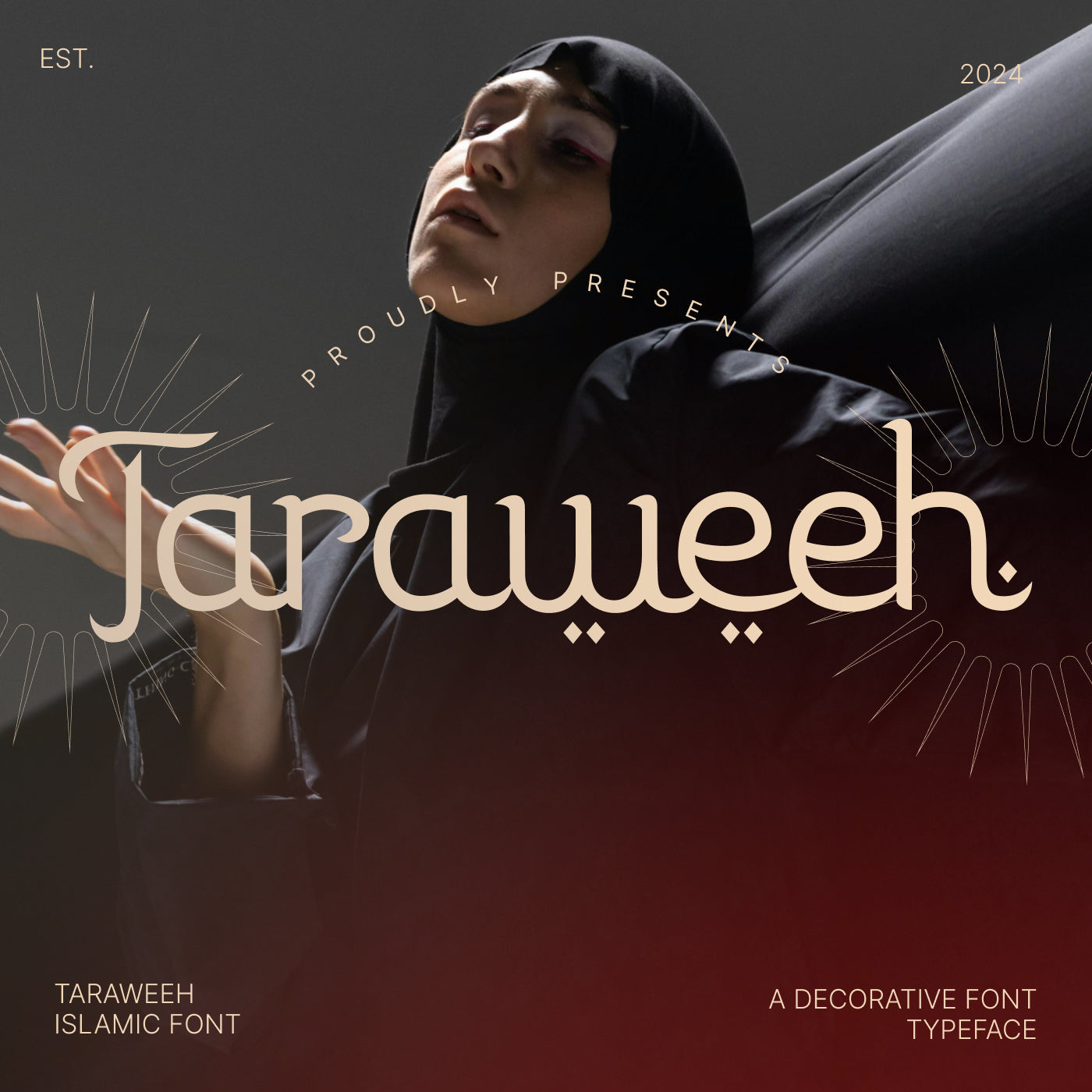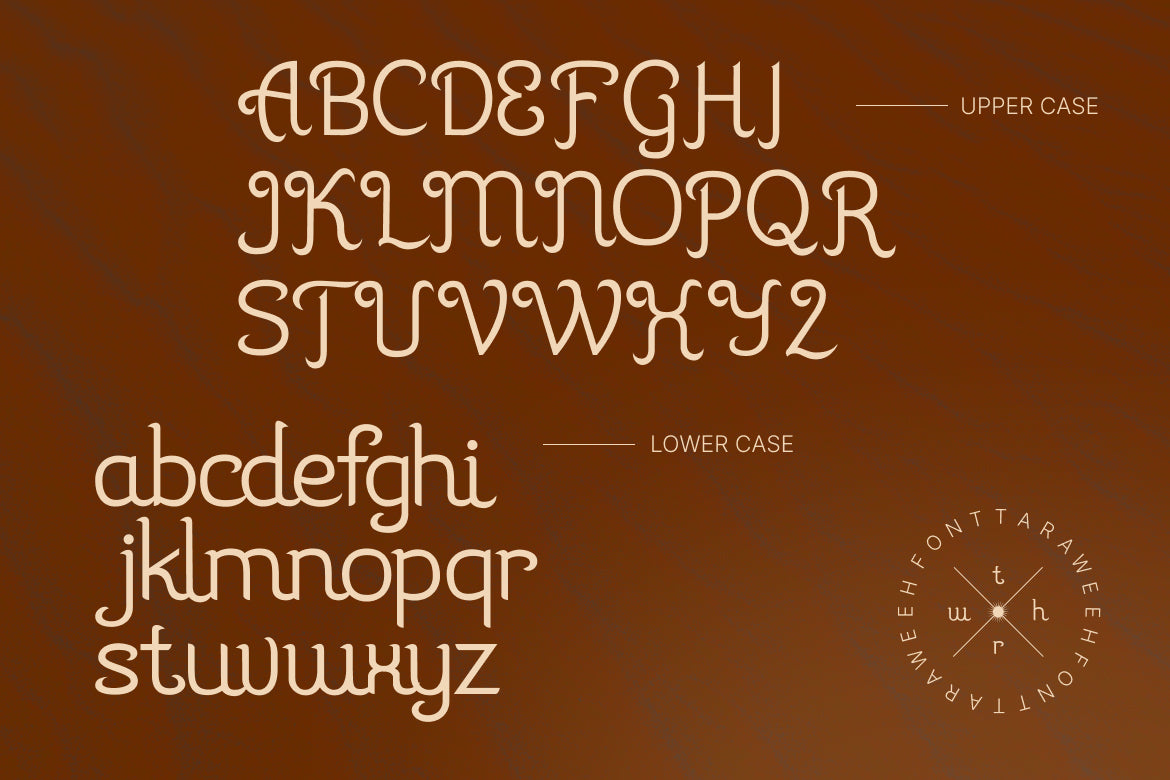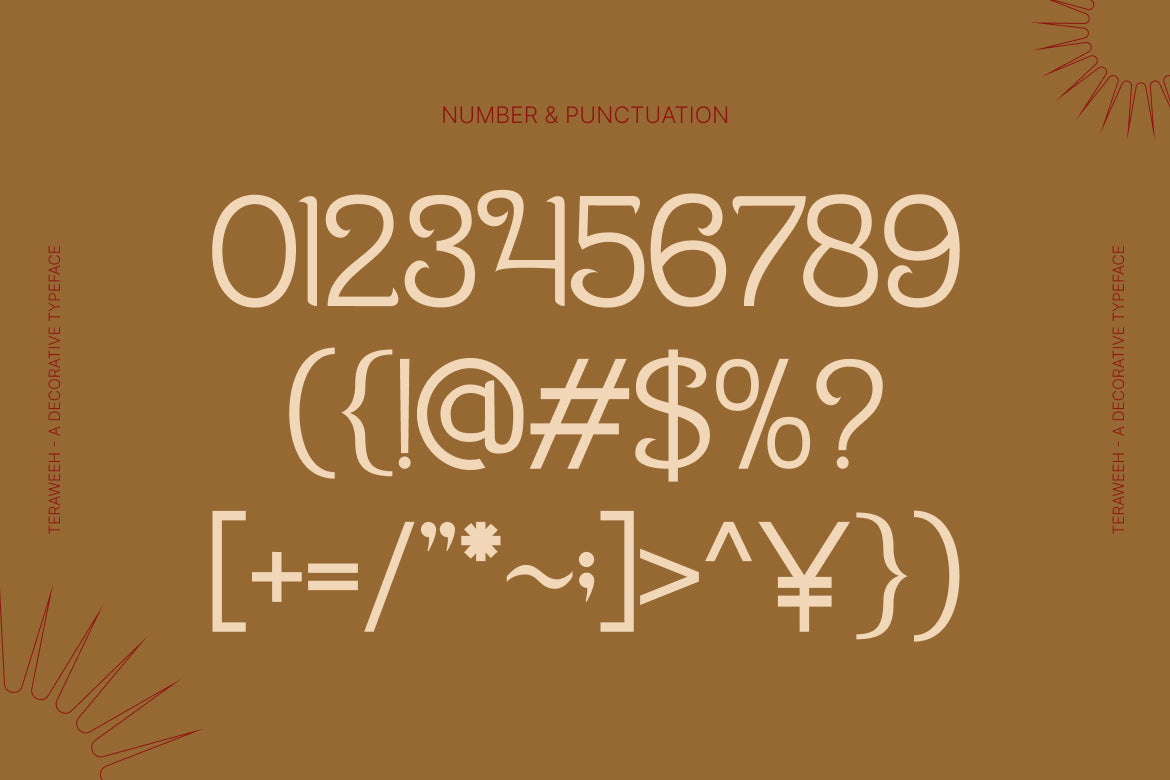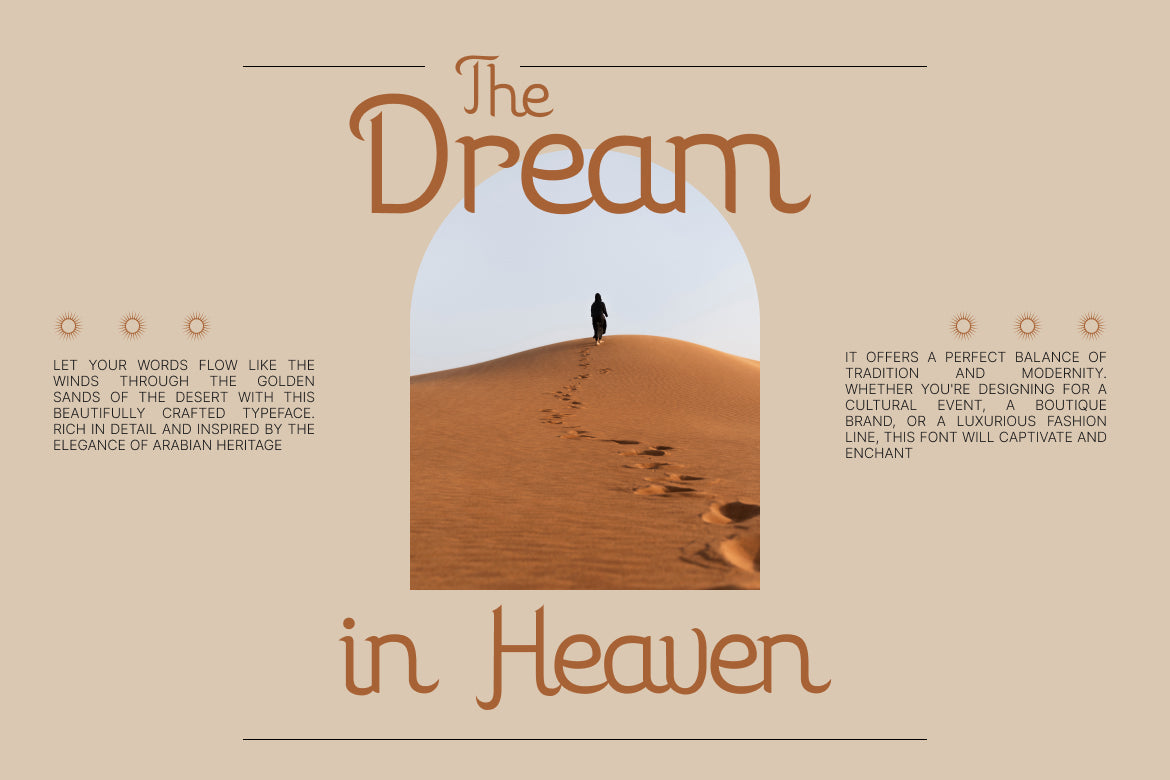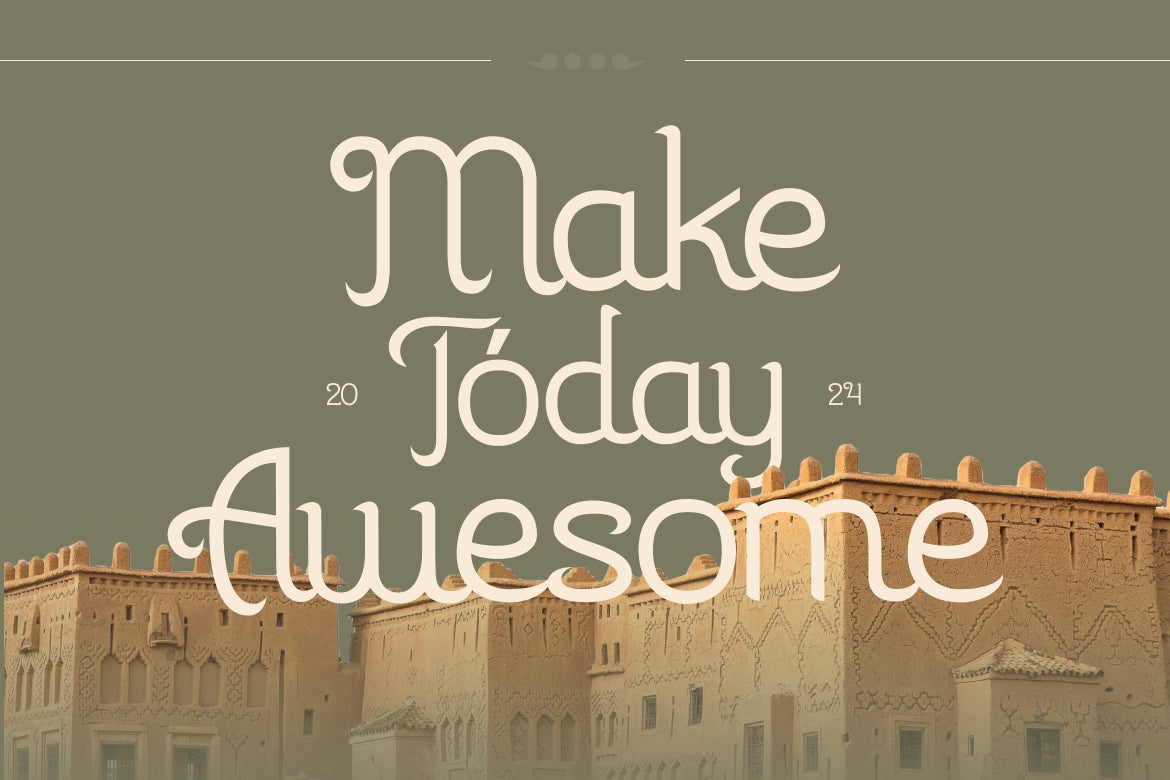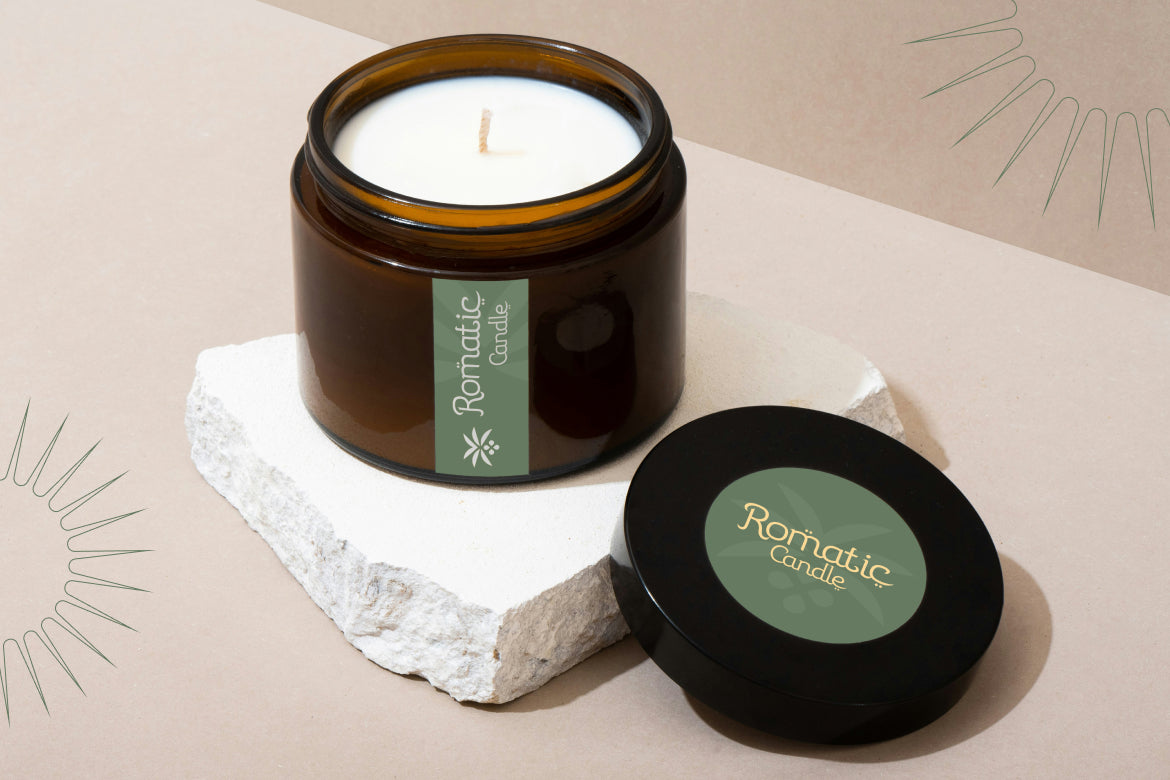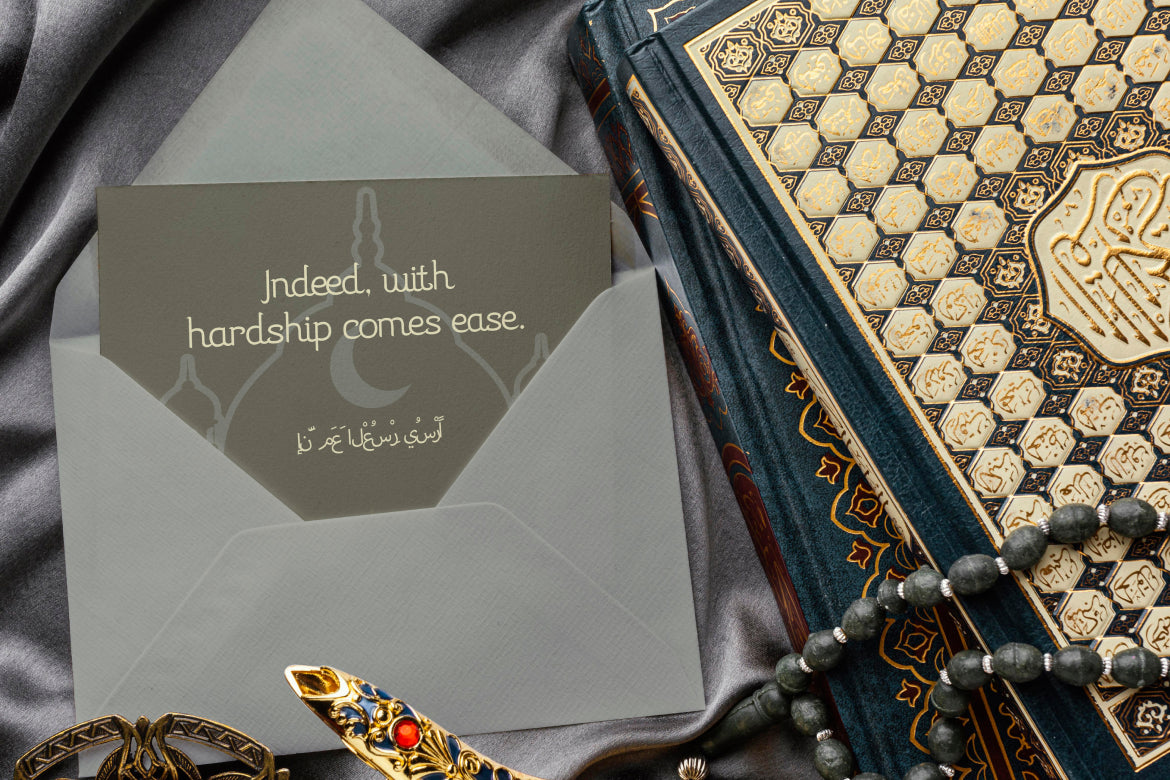
Taraweeh Islamic Font
Taraweeh Islamic Font exudes elegance and a decorative flair, with a touch of Islamic-inspired design. It has a modern and versatile vibe, suitable for a range of applications. This font would work well in designs related to fashion, beauty, cultural events, or any project needing a sophisticated and slightly exotic touch. The font features rounded letterforms with unique decorative elements, giving it a distinctive and memorable appearance.
Suitable for highly suitable for logos, branding, social media graphics, invitations, editorial design, packaging, web design, and fashion and beauty projects, as well as cultural event materials, art projects, titles, advertising, posters, stationery, signage, book covers, apparel, film titles, web banners, and presentations.
The Taraweeh Islamic Font features elegant, rounded letterforms with unique decorative elements, available in TTF, OTF, and WOFF formats. It includes uppercase and lowercase characters, numerals, and punctuation, making it suitable for a variety of design applications.